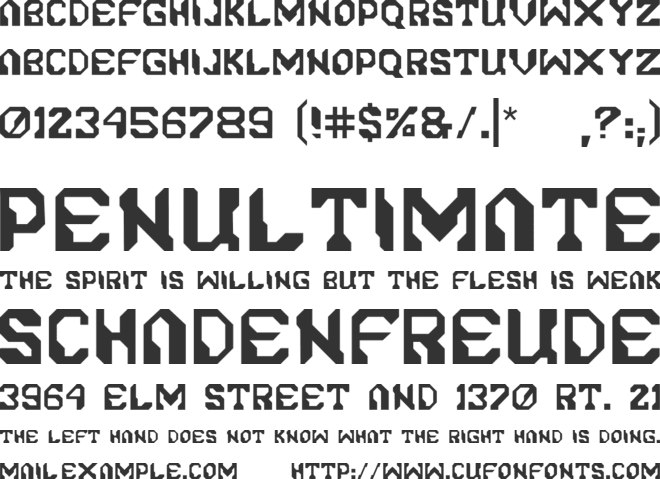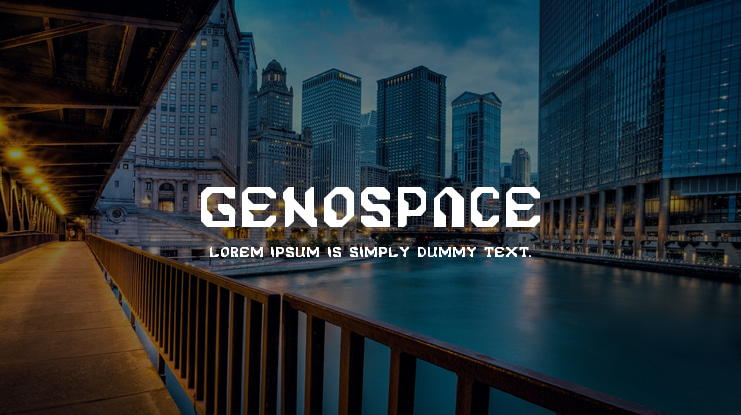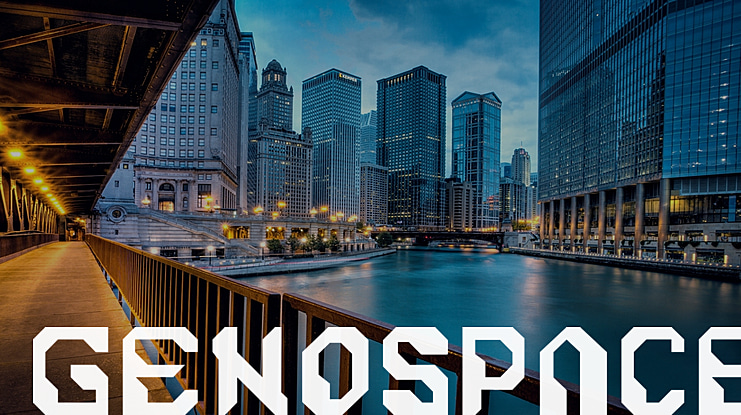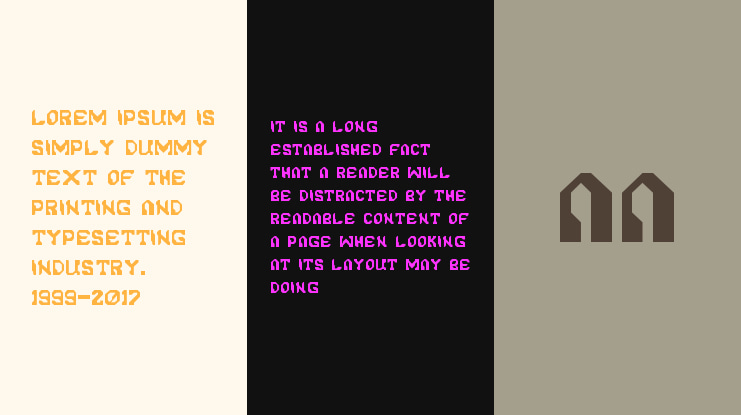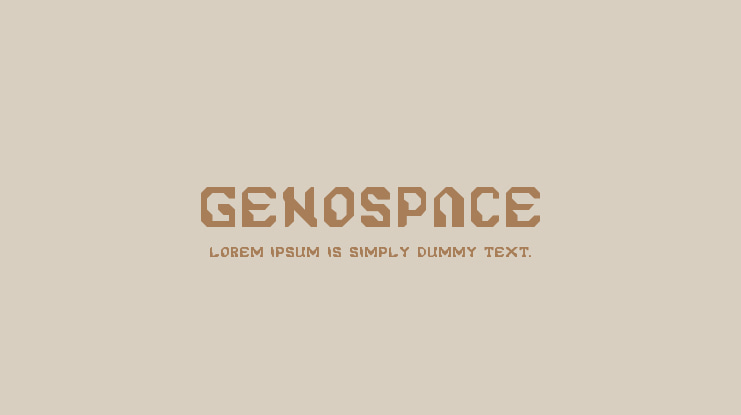
Genospace Font
GENOSPACE is made with POWERFULL SCI-FI STYLE. it's high technology , clean, modern and more futuristic looks font. it's good on titles, logos, fashion magazine, quotes, print template and other designs needed.